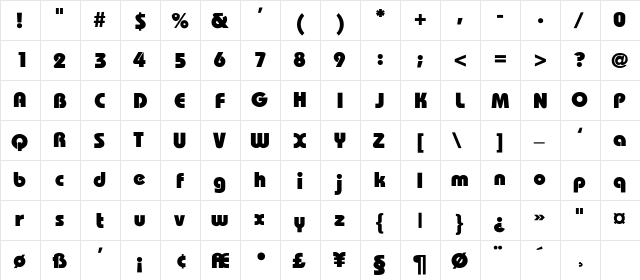
Steff Bold HV Regular
Design Context for Steff Bold HV Typeface
Steff Bold HV is a composed and adaptable typeface that performs quietly and consistently across a wide range of design contexts. Its bold stroke weight gives it real presence on the page.